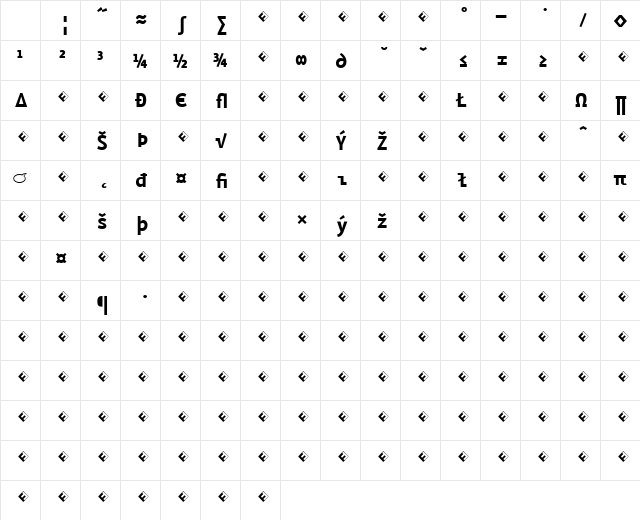
Complete Eureka Mono Exp Regular glyph index. Displaying only characters natively supported by Eureka Mono Exp Regular font.
Eureka Mono Exp uses fixed-width spacing throughout, giving it the structured, systematic character associated with coding environments and technical documentation.
Who designed the Eureka Mono Exp Regular font?
This font was published by Peter Bilak, published by FontShop International for the FontFont library. Check the technical specs section for copyright and designer details.